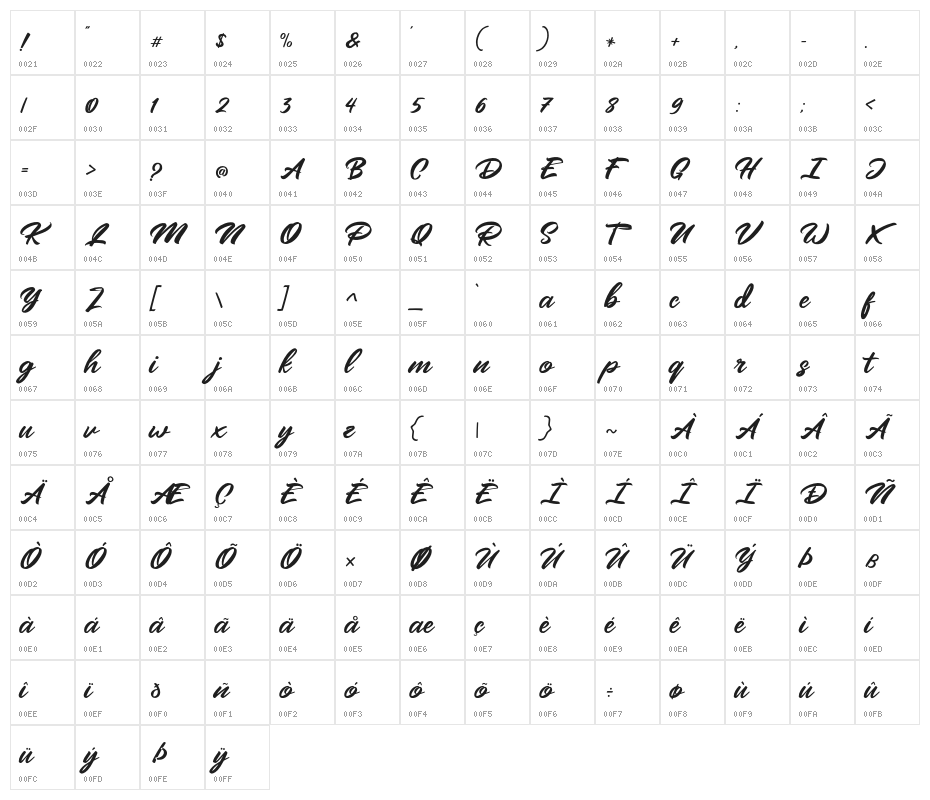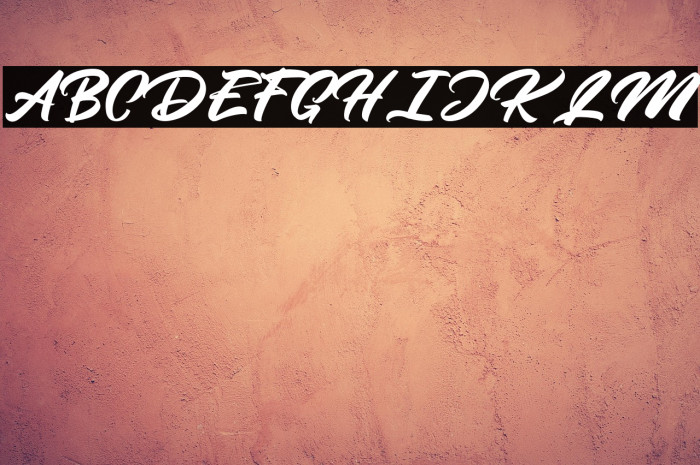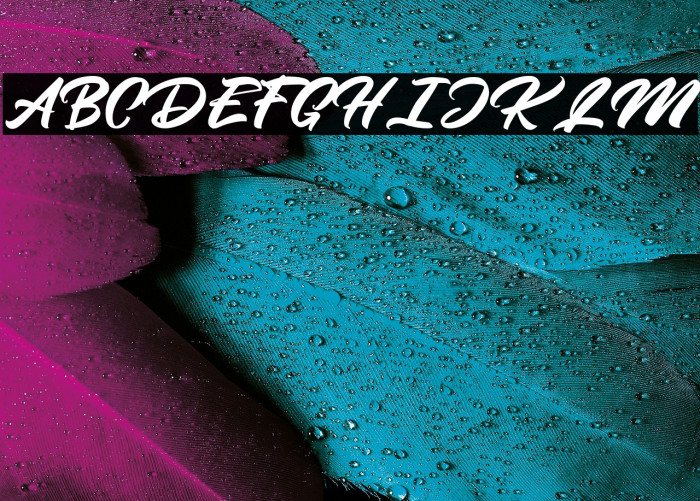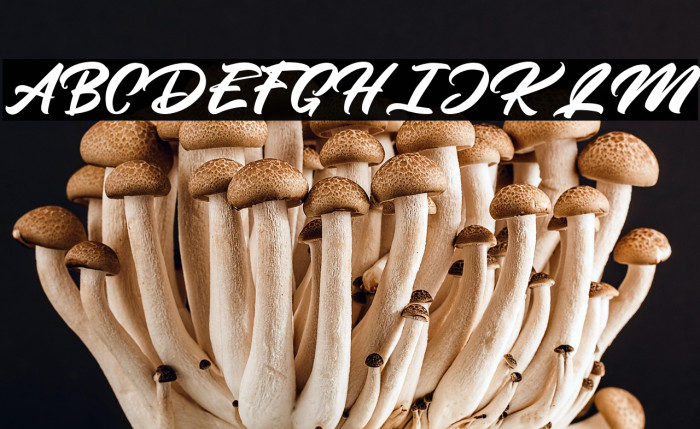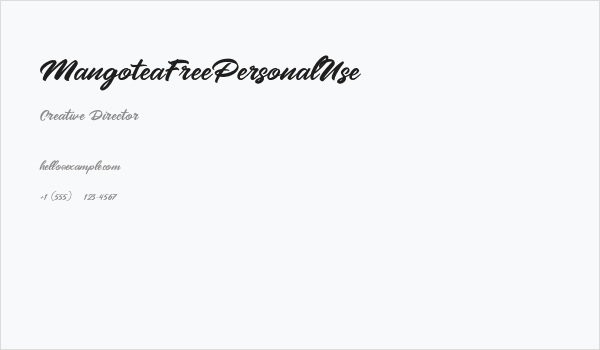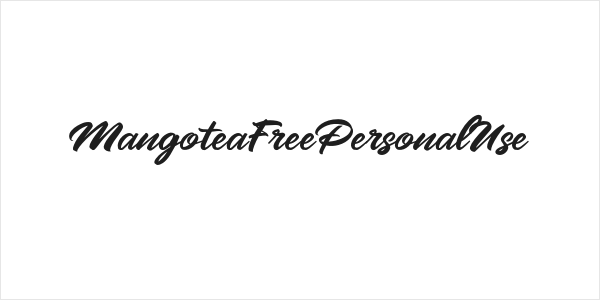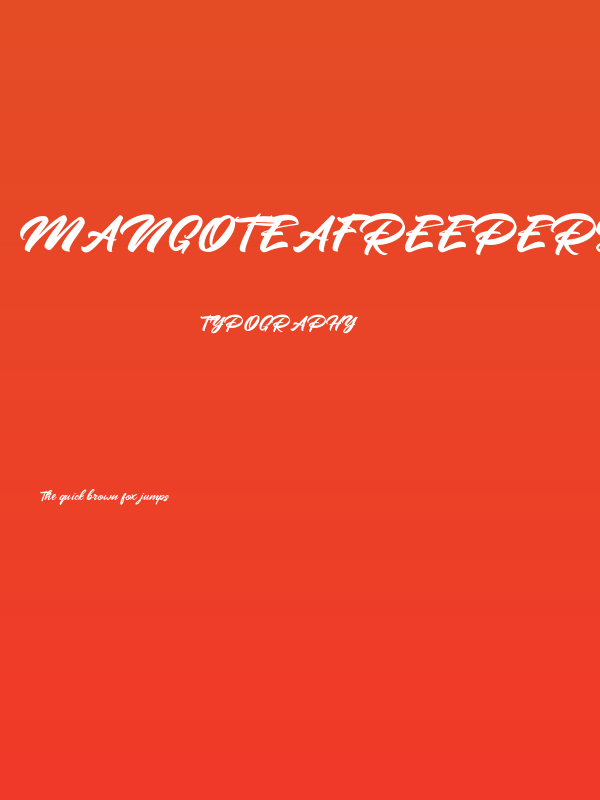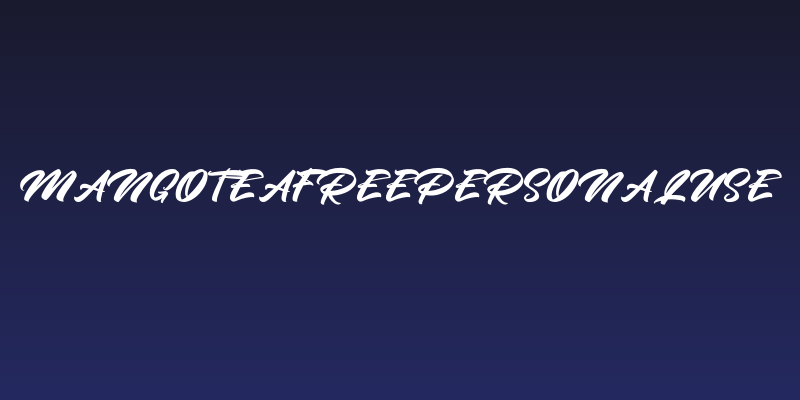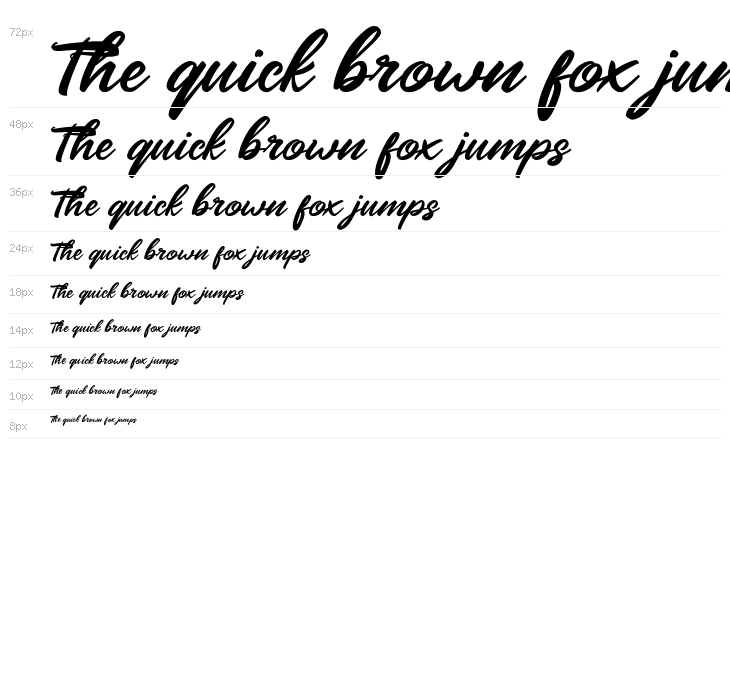
MangoteaFreePersonalUse Font
MangoteaFreePersonalUse Description
This font features a bold, flowing script style that exudes elegance and sophistication. The characters are connected, mimicking the fluidity of cursive handwriting, which gives it a personal and artistic touch. The uppercase letters are slightly more ornate, with flourishes that add a sense of grandeur. The lowercase letters maintain a consistent flow, enhancing readability while preserving the decorative nature. The numerals are styled to match the script, ensuring uniformity across the font. Special characters are included, maintaining the same stylistic elements, which makes this font versatile for various uses.
| Proposed Projects | Ideal for wedding invitations, branding, greeting cards, and elegant logo designs. |